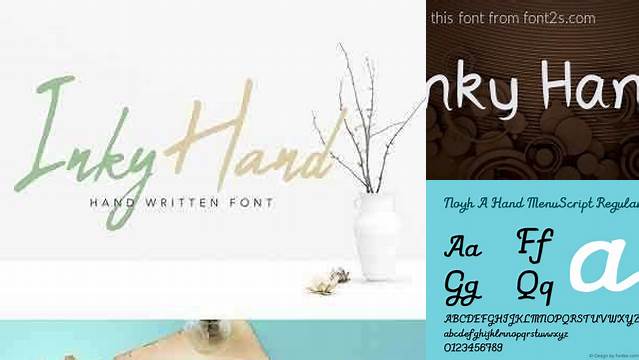
Hey guys! Ever stumbled upon a font that just clicks? That's how I felt when I first saw Inky Hand Script. This font is seriously a game-changer for anyone looking to add a personal, handwritten touch to their projects. Whether you're designing invitations, crafting social media graphics, or even working on a branding project, Inky Hand Script can bring that authentic, human feel that's so in demand right now. This article is your ultimate guide to everything Inky Hand Script, from where to download it for free to how to use it effectively. So, let's dive in and explore the magic of this amazing font!
1. What is Inky Hand Script?
Okay, so let's start with the basics. What exactly is Inky Hand Script? Well, imagine taking a pen and writing something out yourself – that’s the vibe this font gives off. It’s a script font, which means it’s designed to mimic handwriting. But it’s not just any handwriting; it's got this lovely, slightly imperfect quality that makes it feel super real and personal. Think about it: in a world saturated with perfect, digital fonts, something that looks genuinely handwritten stands out. Inky Hand Script has a natural flow and rhythm, with varying stroke thicknesses that add to its charm. This means each letter connects seamlessly to the next, creating a cohesive and elegant look. It's the kind of font that instantly adds warmth and personality to any design. Plus, being a regular font means it's versatile enough to be used in a variety of sizes and applications. From headlines to body text (though maybe not for super long paragraphs), Inky Hand Script brings a touch of artistry to the table.
2. Key Features of Inky Hand Script
Let’s break down the key features of Inky Hand Script that make it such a standout font. First off, it's the authenticity. As we've touched on, this font truly captures the essence of handwriting. The slightly uneven lines and natural curves give it a genuine, organic feel that’s hard to replicate with other fonts. Then there’s the legibility. While some script fonts can be a bit tricky to read, Inky Hand Script strikes a great balance between style and clarity. The letters are distinct and well-formed, making it easy on the eyes, even in smaller sizes. Another important feature is its versatility. You're not just limited to using it for one type of project. Whether you're designing wedding invitations, creating logos, or crafting website headers, Inky Hand Script can adapt to a wide range of design needs. The font also often includes ligatures and alternates, which are special characters and letter combinations that add even more handwritten flair. These little extras can make a big difference in creating a truly custom look. Finally, the fact that it’s often available as a free font makes it incredibly accessible to designers and creatives of all levels. Who doesn't love a beautiful font that doesn't break the bank?
6. Using Inky Hand Script in Graphic Design Projects
Okay, now for the fun part: using Inky Hand Script in your graphic design projects! This font is seriously versatile, but like any design element, it's all about using it in the right way. First, consider the mood you're trying to create. Inky Hand Script has a warm, personal, and slightly informal feel. It's perfect for projects where you want to convey authenticity, friendliness, or a handmade touch. Think wedding invitations, greeting cards, blog headers, social media graphics, and even logos for businesses that want to project a more approachable image. Next, think about readability. While Inky Hand Script is generally quite legible, it's still a script font, so it's best used for headlines, short phrases, or quotes rather than large blocks of body text. For longer paragraphs, pair it with a clean, simple sans-serif font for optimal readability. Pairing fonts is key! Inky Hand Script works beautifully with fonts like Open Sans, Montserrat, or Lato. These sans-serif fonts provide a nice contrast to the script, creating a balanced and visually appealing design. Experiment with different sizes and weights. While Inky Hand Script is typically a regular weight font, you can still play around with the size to create emphasis and visual interest. Try using it in a larger size for headlines and a smaller size for subheadings or captions. Don't be afraid to add some extra flair. Many script fonts, including Inky Hand Script, come with ligatures and alternates. These are special characters and letter combinations that add even more handwritten charm. Experiment with these to create a truly unique look.
7. Pairing Inky Hand Script with Other Fonts
We touched on this briefly, but let's dive deeper into the art of pairing Inky Hand Script with other fonts. The right font pairing can make or break a design, so it's worth taking the time to get it right. The goal is to create a visual hierarchy and ensure that your text is both readable and aesthetically pleasing. The general rule of thumb is to contrast, not compete. Since Inky Hand Script is a script font with a lot of personality, it's best to pair it with a more neutral font that won't clash. Sans-serif fonts are often a great choice because they have a clean, modern look that complements the handwritten feel of Inky Hand Script. Some specific sans-serif fonts that work well include: Open Sans: This is a classic, versatile sans-serif font that's highly readable and works well in a variety of contexts. Montserrat: Montserrat has a slightly more geometric feel, which can add a touch of sophistication to your design. Lato: Lato is another highly readable sans-serif font that's known for its warmth and friendliness. Roboto: Roboto is a modern and clean font that provides a neutral backdrop for the Inky Hand Script. You can also pair Inky Hand Script with serif fonts, but it's a bit trickier. If you go this route, choose a serif font that's relatively clean and simple, like Merriweather or Playfair Display. Avoid ornate or overly decorative serif fonts, as they can clash with the handwritten style of Inky Hand Script. Think about the hierarchy of your text. Use Inky Hand Script for headlines or short phrases where you want to draw attention, and use the sans-serif or serif font for body text where readability is paramount. This will create a clear visual distinction and guide the reader through your design.
8. Using Inky Hand Script for Logos and Branding
Can Inky Hand Script be used for logos and branding? Absolutely! In fact, it can be a fantastic choice for brands that want to project a personal, approachable, and authentic image. Think about businesses like handmade goods shops, artisanal bakeries, or creative studios – these are the kinds of brands that can really benefit from the handwritten feel of Inky Hand Script. However, there are a few things to keep in mind when using a script font for a logo. Readability is key. Your logo needs to be legible, even at small sizes. While Inky Hand Script is generally quite readable, it's still important to test it out in various sizes to make sure it's clear and easy to understand. Consider the overall brand identity. Does Inky Hand Script fit with the overall message and aesthetic of your brand? If your brand is more corporate or formal, a script font might not be the best choice. But if your brand is playful, creative, or personal, Inky Hand Script can be a great fit. Think about scalability. Your logo needs to look good not just on your website and business cards, but also on larger formats like banners and signage. Make sure Inky Hand Script holds up well at larger sizes and doesn't become blurry or distorted. Pair it with a strong brand color palette. The colors you use in your branding can have a big impact on the overall feel. Inky Hand Script often works well with warm, earthy tones or soft, pastel colors, which can enhance the handwritten feel. Consider using a simplified version of the font for smaller applications. If you find that Inky Hand Script is a bit too detailed for small sizes, you might consider using a simplified version of the font or even just a few key letters from the font to create a memorable logo mark.
10. Creating Social Media Graphics with Inky Hand Script
In today's digital world, social media graphics are essential for businesses and individuals alike. And guess what? Inky Hand Script can be a fantastic asset for creating eye-catching and engaging social media content. The handwritten feel of this font can help your graphics stand out from the crowd and add a touch of personality to your brand. When using Inky Hand Script for social media graphics, there are a few key strategies to keep in mind. Use it sparingly. Social media graphics often have a lot of visual elements competing for attention, so it's best to use Inky Hand Script strategically. Use it for headlines, quotes, or short phrases that you want to emphasize. Avoid using it for large blocks of text, as it can be difficult to read on a small screen. Choose a contrasting background. Make sure the Inky Hand Script stands out against the background of your graphic. A clean, simple background is often the best choice. You can also experiment with using a color overlay or a subtle texture to create visual interest. Pair it with a strong visual. Social media graphics are all about visuals, so make sure your design includes a compelling image or illustration. Choose an image that complements the handwritten feel of Inky Hand Script. Consider the platform. Different social media platforms have different aspect ratios and design conventions. Make sure your graphics are optimized for the platform you're using. For example, Instagram graphics are often square, while Facebook cover photos are wider. Use it to create a consistent brand aesthetic. Using Inky Hand Script consistently in your social media graphics can help you create a recognizable brand aesthetic. This will make your content more memorable and help you build brand recognition. Experiment with animations. Adding subtle animations to your social media graphics can make them even more engaging. Consider animating the Inky Hand Script to create a sense of movement and dynamism.